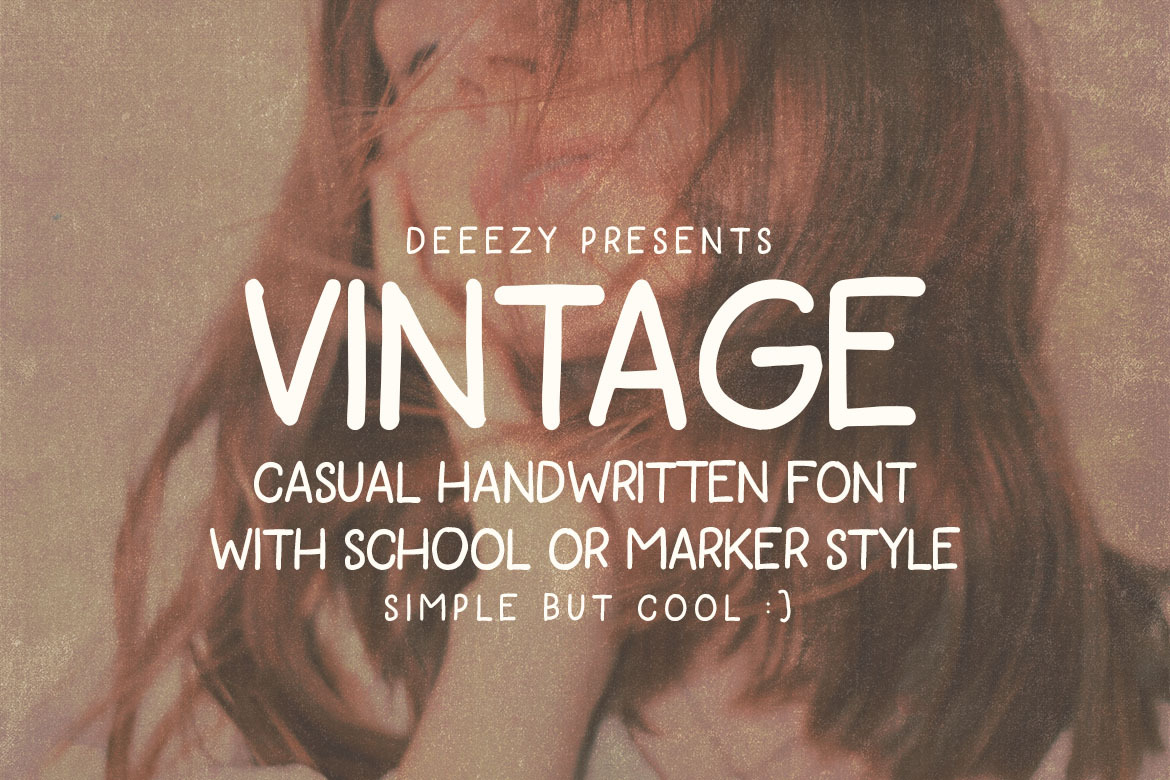
Vintage Handwritten Marker Font
Casual, simple, rough, handwritten and marker sans serif font for your new projects. With multi language support and casual urban or school style ;)
- CAPS & CAPS alternates (small letters) + numbers & special characters